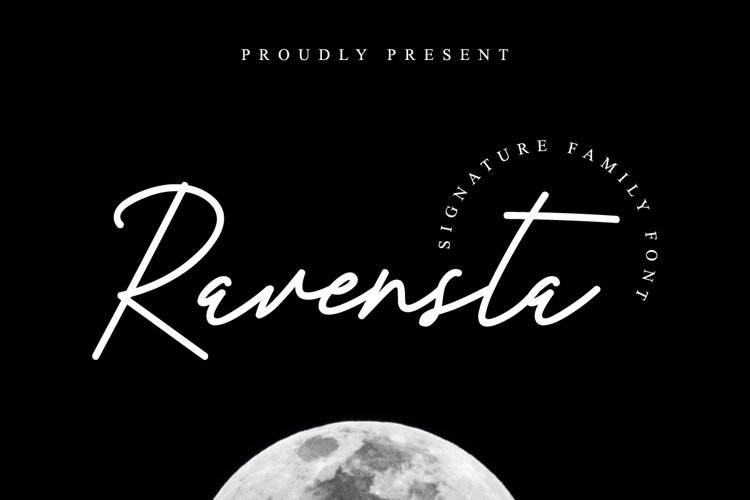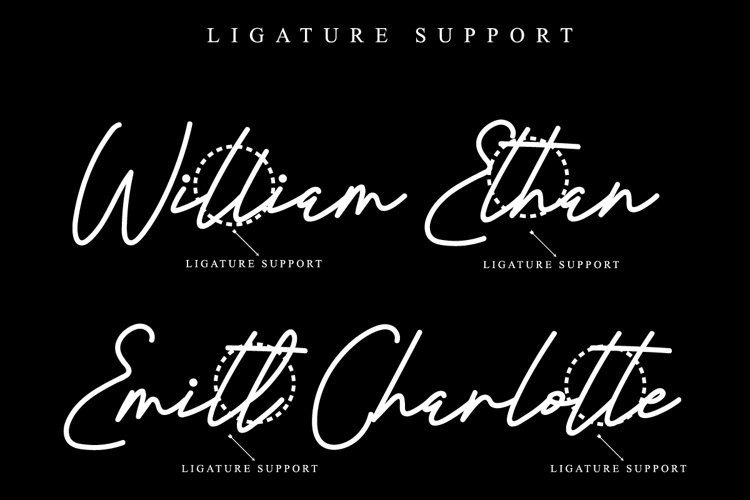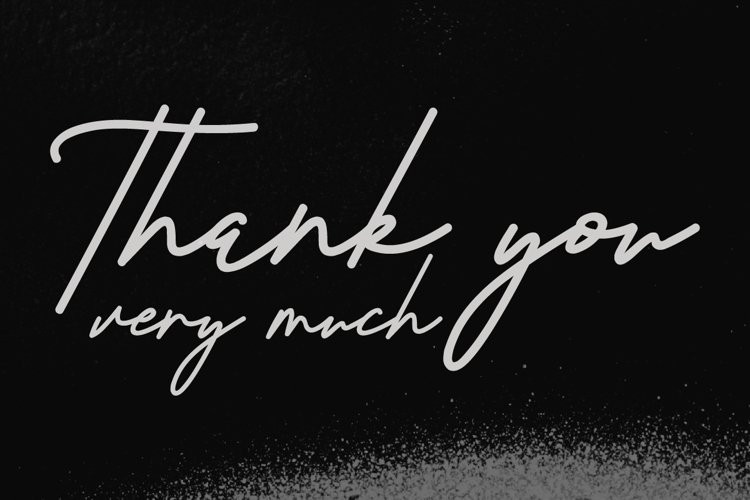
Ravensta Font
Ravensta Font is a monoline signature font script with elegant handwriting style, handcrafted from our Studio here in Indonesia. Ravensta Signature Font is an original handwritting script typeface with simple signature look. It has a stunning characters set, perfectly managed with well spaced and kerning. The theme style of this font is simple, sophisticated, stylish, clean and classic signature style.
Ravensta Font will be great for any projects including : branding, logo, stationery, business card, signage, flyer, brochure etc. Almost all industries will be match for this typeface: wedding, events, real estate, architect, law firm, florist, gardening, makeup artist, travel, hotel, musician etc